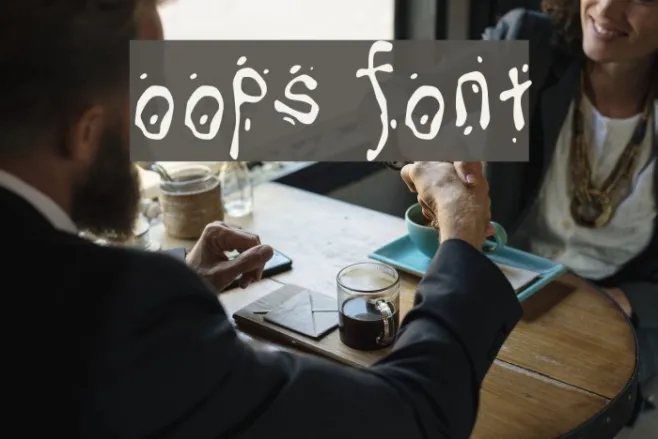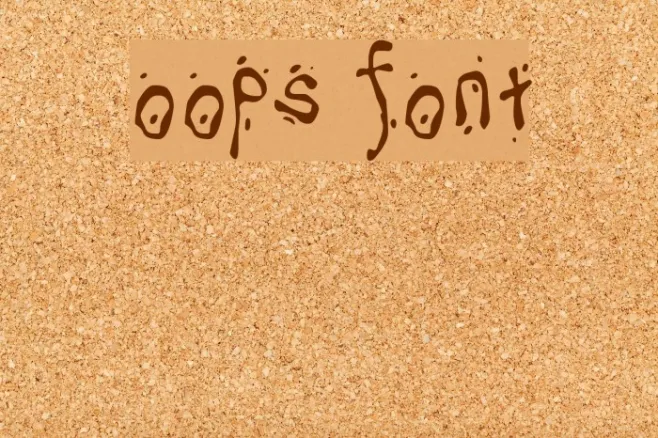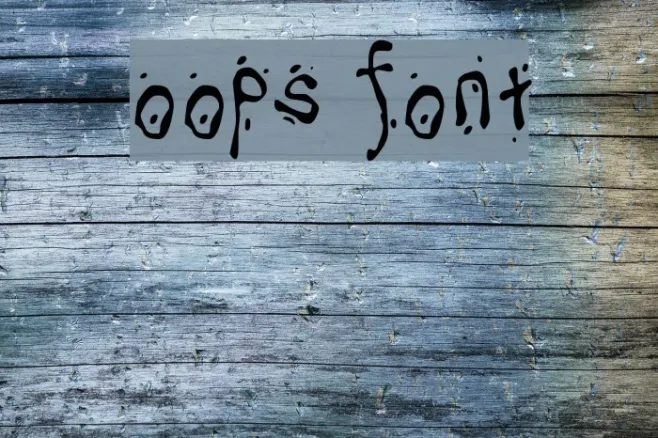
Oops Font
Oops Description
This font features a playful and whimsical design, characterized by its irregular, blob-like shapes and uneven strokes. Each letter appears as if it has been drawn with a dripping paint effect, giving it a unique and artistic appearance. The font maintains a consistent style across both uppercase and lowercase letters, as well as numbers and special characters. Its distinctive look makes it stand out, with a sense of movement and fluidity that adds to its charm. The characters are well-spaced, ensuring readability despite their unconventional form.
| Overall Style | Artistic, Playful |
| Proposed Projects | Ideal for creative projects such as children's book covers, playful branding, artistic posters, and unique invitations. |